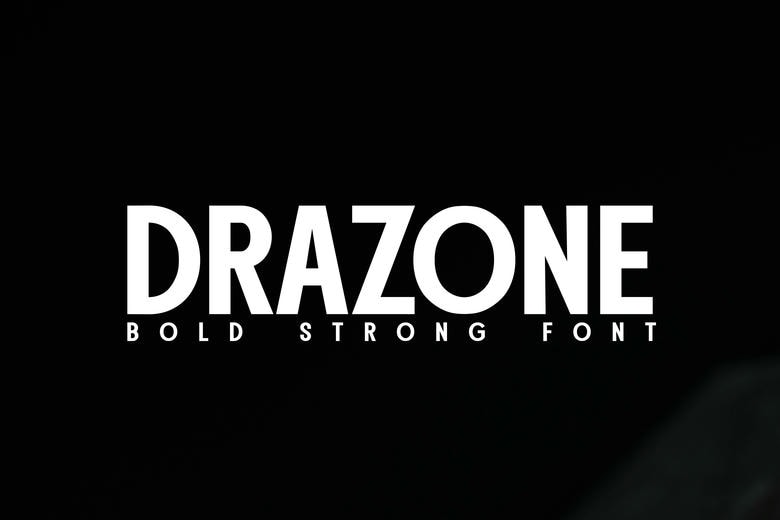
Drazone Strong Font
Drazone is a marvel of sturdy typography designed to leave a lasting impression. This display font delivers a strong and bold design, perfect for print media and other impactful design avenues. With its unique characters, Drazone will turn heads of typography lovers and font connoisseurs alike.
This heavy font stands as testament to the power of creative typography, bringing an unrivaled level of sophistication to any graphic design project. Choose Drazone, your choice for a distinctive and riveting visual narrative.
Drazone Strong Sans Serif Font